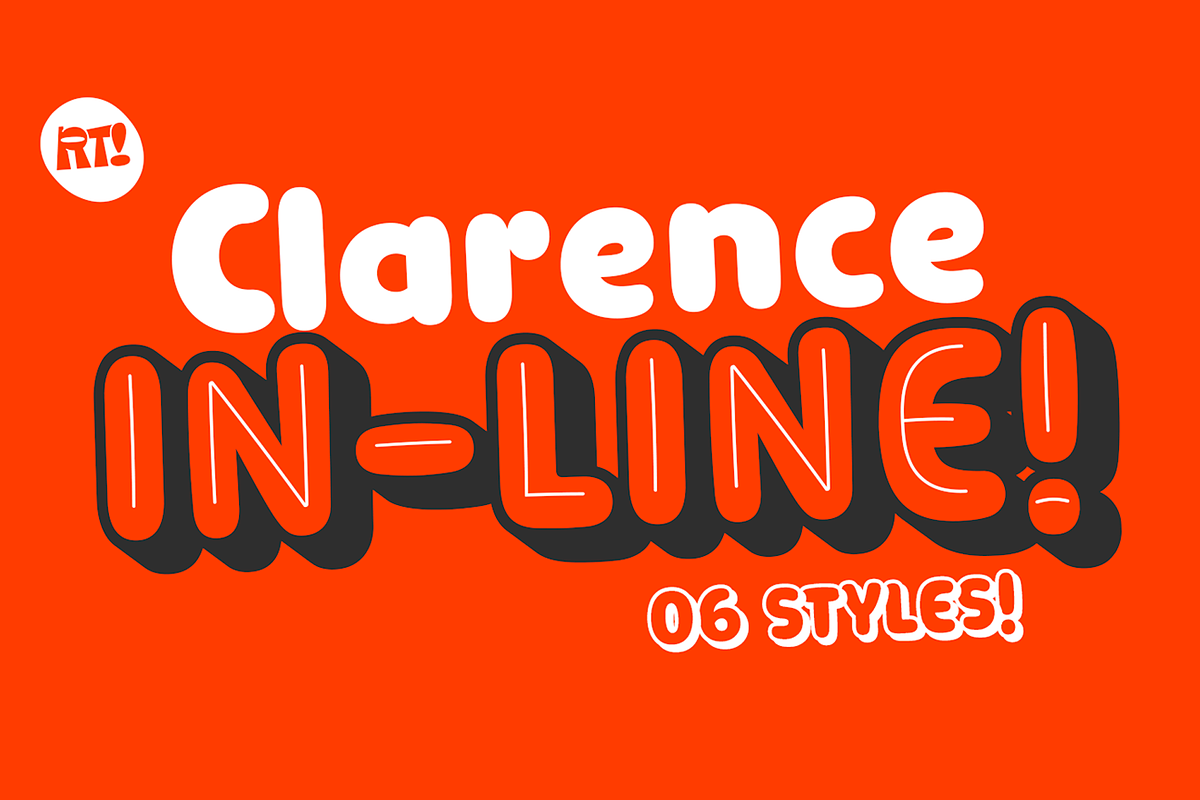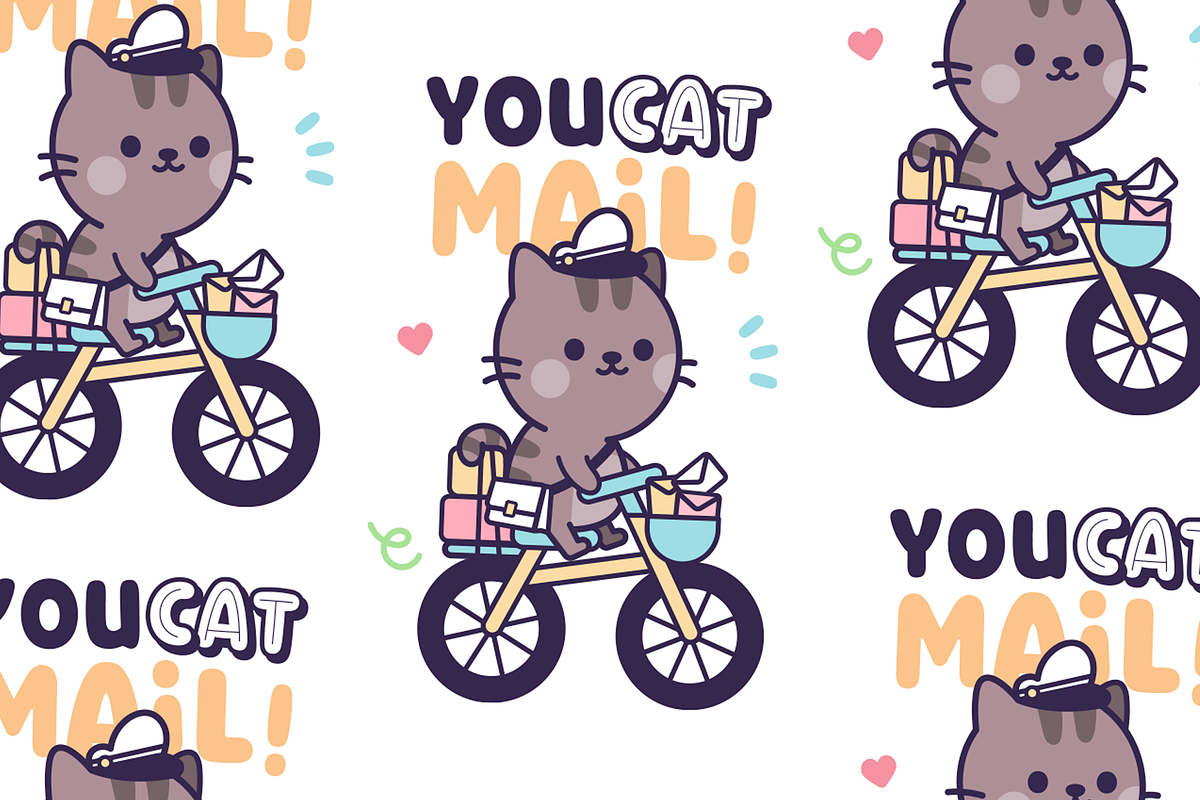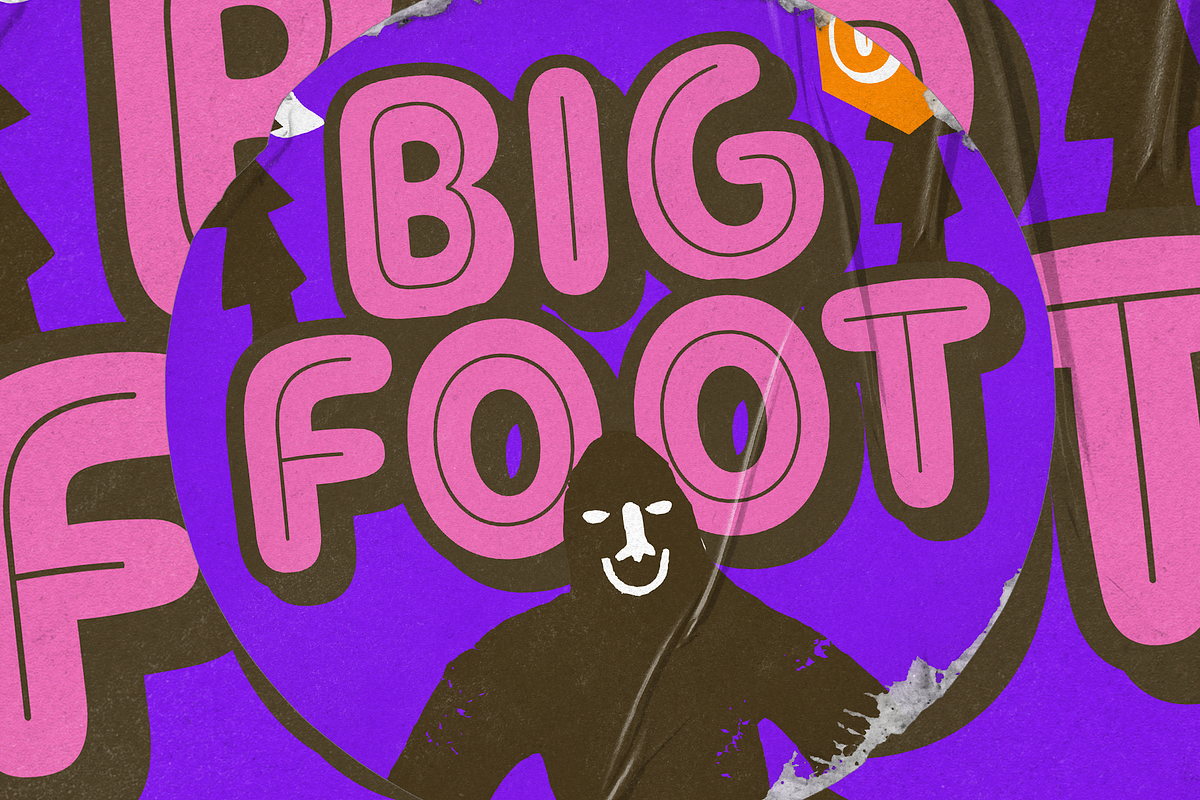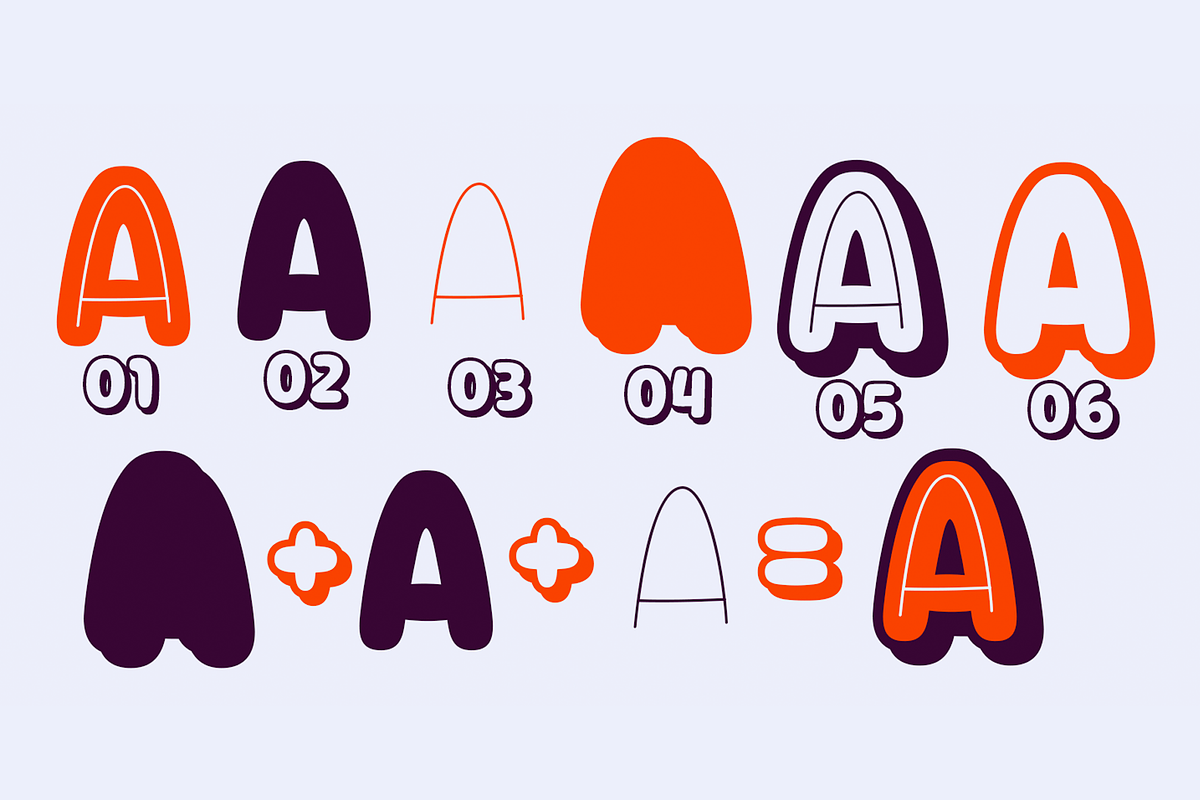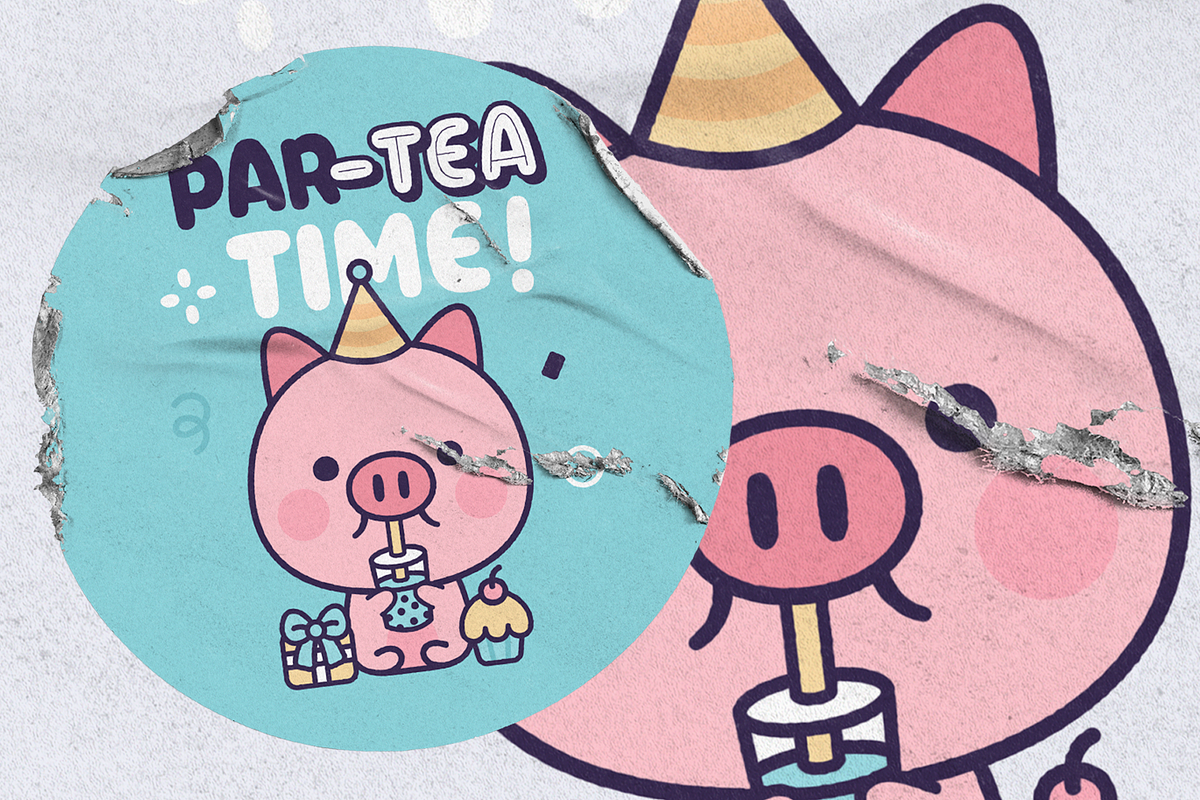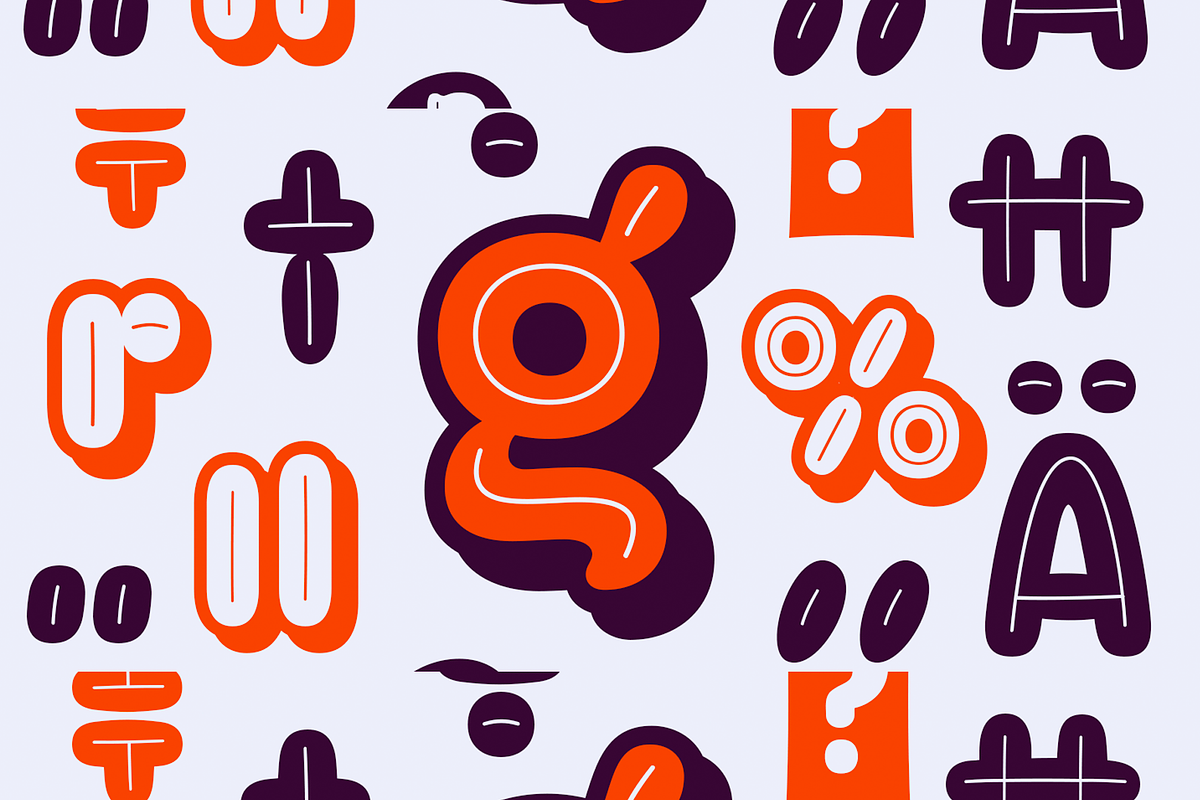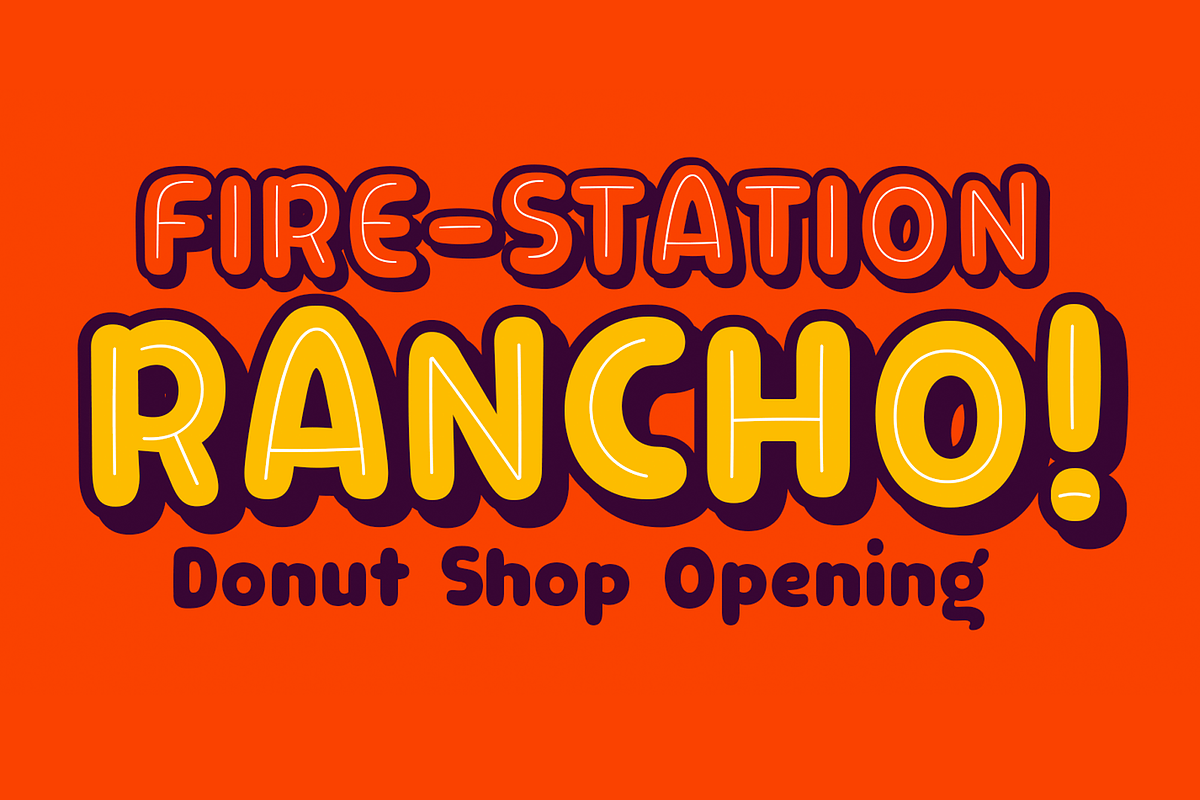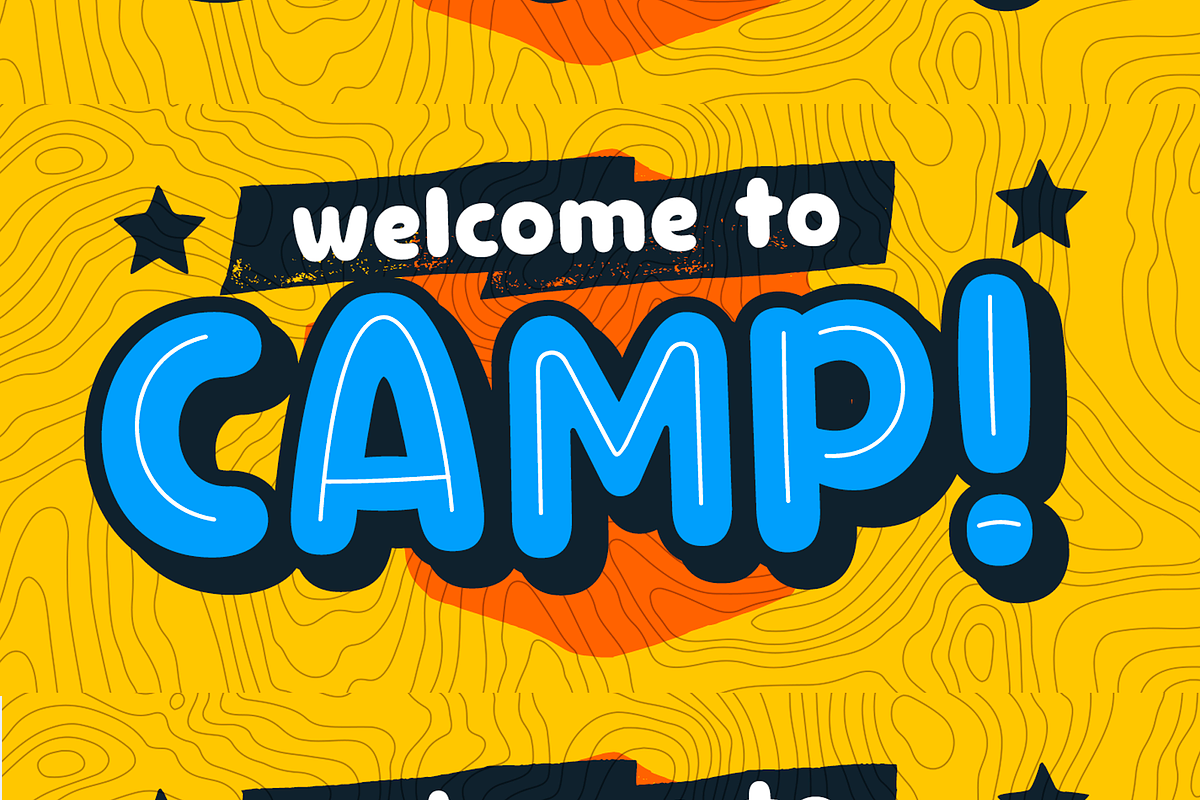
Clarence Inline
Clarence Inline Year: 2020 Author: Rodrigo Araya Designers: Rodrigo Araya, Franco Jonas!
A display typeface with a lot of personality and different alternatives contains inline, layers as shadows